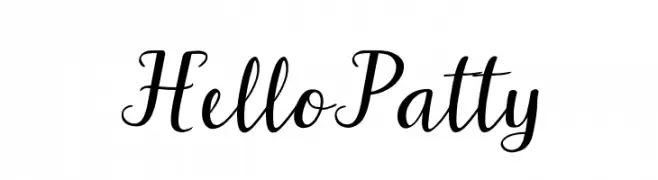
• HollandischClosed-Regular
( Intellecta Design - Paulo W - new.myfonts.com/foundry/Intellecta_Design/?refby=paulow )
A decorative font with intricate flourishes and a historical charm.
• StephensHeavyWriting
( Intellecta Design - Paulo W - new.myfonts.com/foundry/Intellecta_Design/?refby=paulow )
A bold, dynamic script font with a strong, fluid presence.
• ISL_NANO
( Isurus Labs - Derik Schneider )
A pixelated, blocky font with a retro digital style.
• JBCursive-V3 Medium
( JBFoundry - Jean Boyault - jean.boyault.pagesperso-orange.fr/ )
An elegant script font with flowing, interconnected characters and decorative flourishes.
• JKPolarDemo
( Jacob King - www.typespace.co.uk )
A modern, narrow font with uniform stroke width and a sleek, elegant appearance.
• Hello Patty
( Jaime Rangel Castro )
An elegant script font with flowing, connected strokes and subtle flourishes.
• Kidergarden
( Joe Chau - fontever.com )
A playful, handwritten font with a childlike charm and consistent stroke width.
• ancientHellenic Regular
( John Barounis - www.arxwn.eu/ )
A font inspired by ancient Greek inscriptions with angular, geometric letterforms.
• Majestic Mansion
( Jonathan S. Harris - www.tattoowoo.com )
An elegant script font with flowing, connected characters and ornate flourishes.
• Ecuador Handscript
( Juan Casco - www.juancasco.net )
A classic, elegant handwritten script with flowing, connected letterforms.